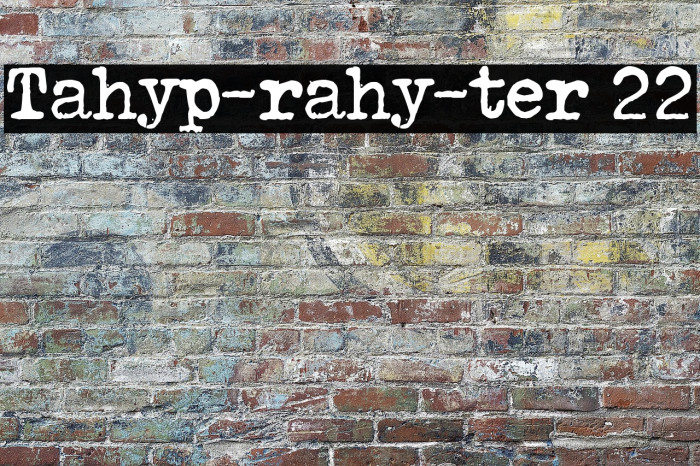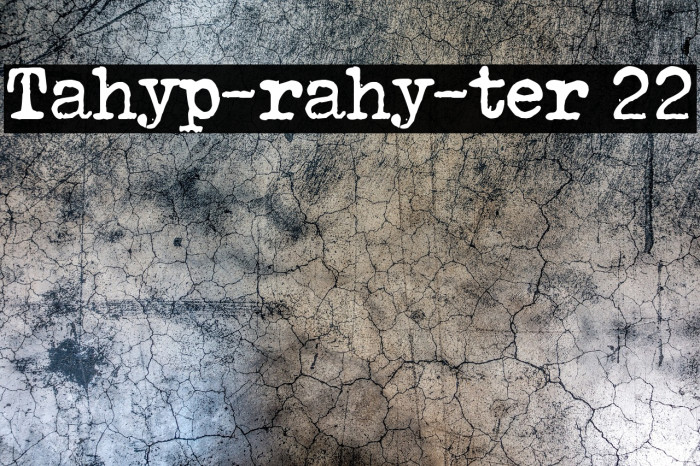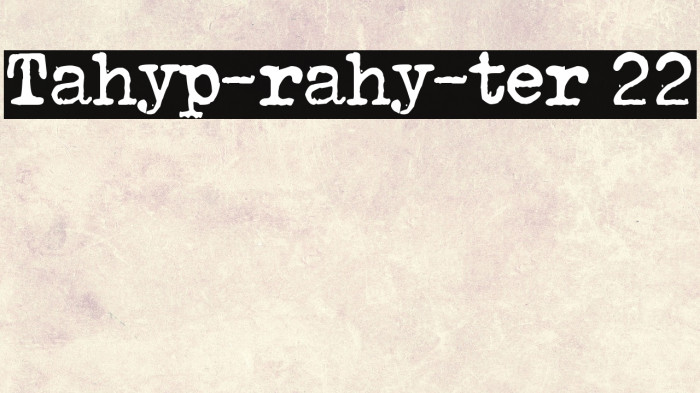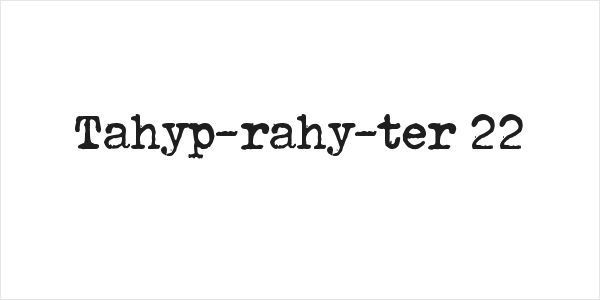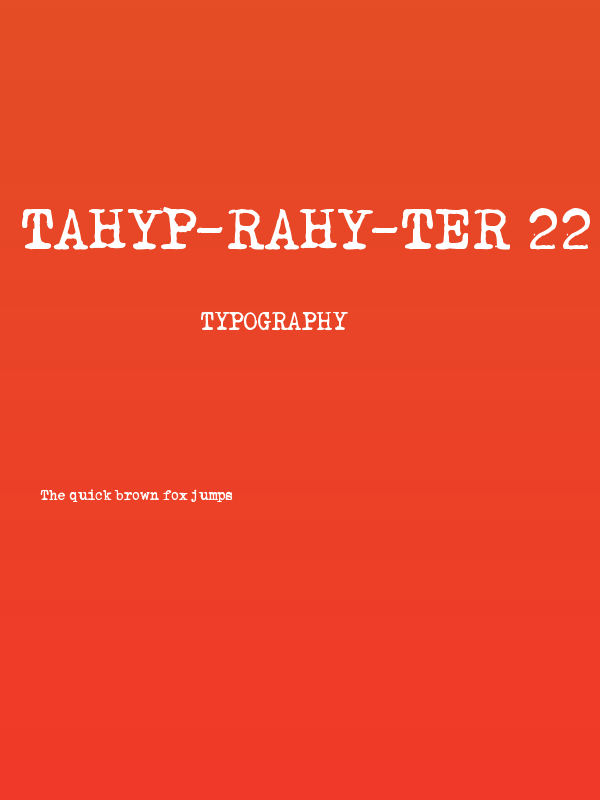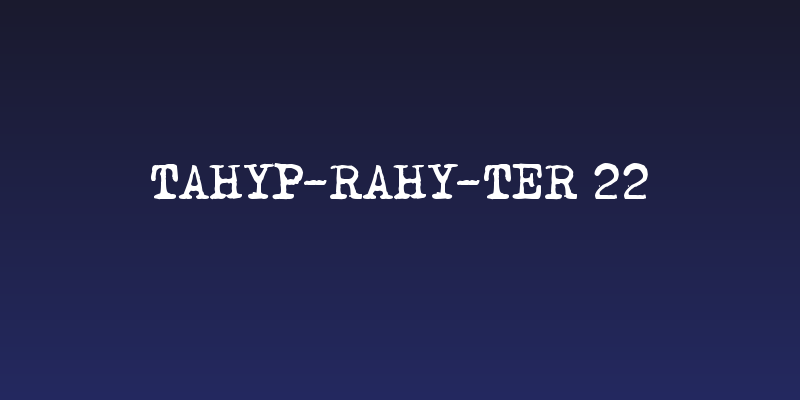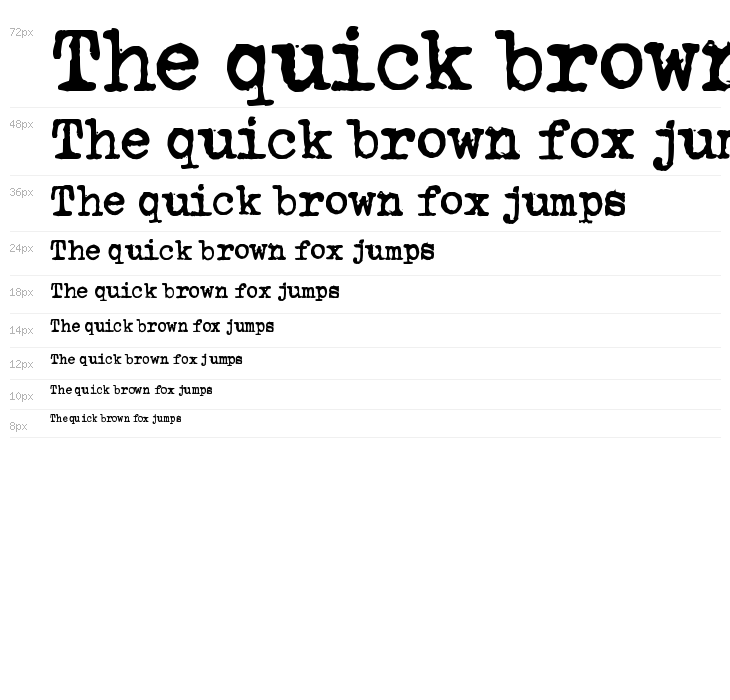
Tahyp-rahy-ter 22 Font
Tahyp-rahy-ter 22 Description
This typeface exudes a vintage, typewriter-inspired aesthetic with its uneven, slightly distressed letterforms that mimic the look of ink on paper. The characters have a monospaced appearance, giving each letter equal width, which is characteristic of traditional typewriter fonts. The edges are rough and irregular, adding to the authentic, old-school feel. This font captures the essence of a bygone era, making it ideal for projects that require a touch of nostalgia or a retro vibe. The uppercase and lowercase letters maintain a consistent style, while the numerals and special characters are crafted to match the overall theme.
| Use Case | Headlines, Logos, Decorative text |
| Proposed Projects | Ideal for retro-themed designs, vintage posters, typewriter-style documents, and creative projects that require an old-fashioned touch. |